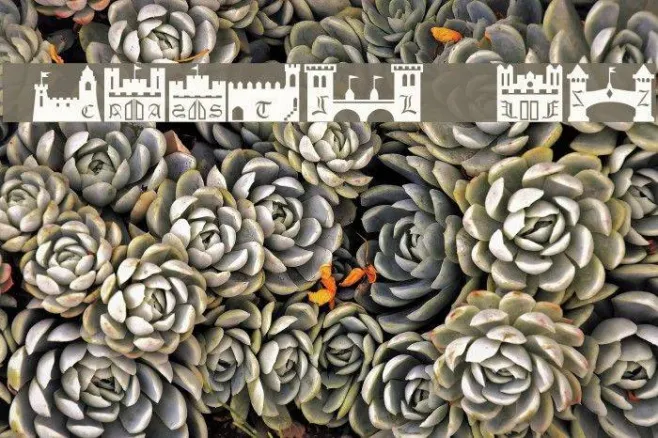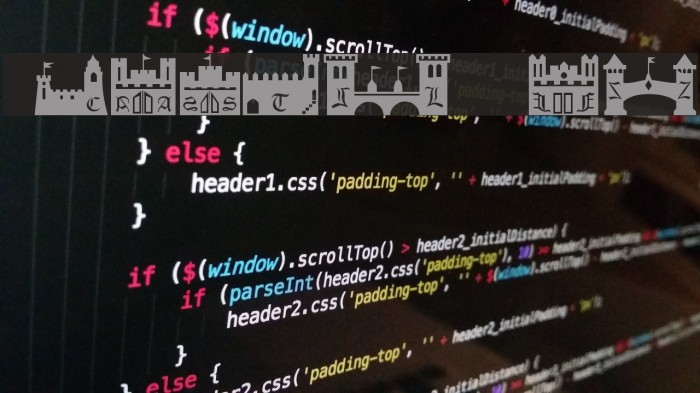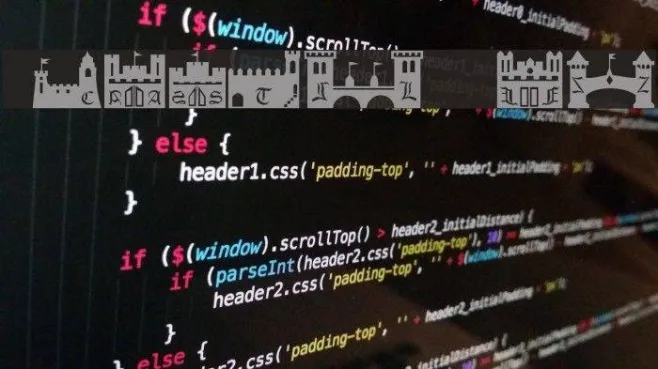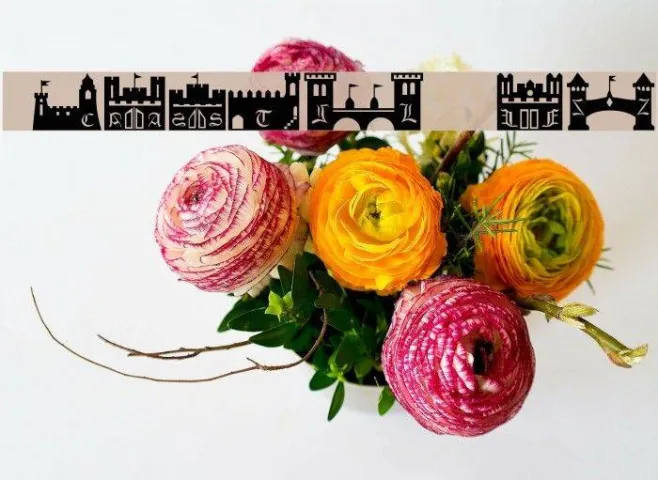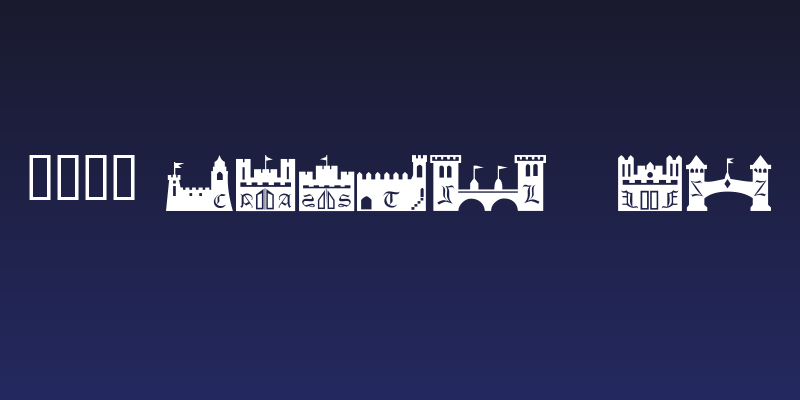
101! CastleZ Font
101! CastleZ Description
This unique decorative font is designed to resemble a series of castle silhouettes, with each character crafted to look like a distinct architectural structure. The font features intricate details, including towers, battlements, and spires, giving it a whimsical and medieval aesthetic. The characters are bold and have a consistent stroke weight, making them stand out with a strong visual presence. The spacing between characters is normal, allowing each castle-like letter to be distinct while maintaining a cohesive look. This font is ideal for projects that require a touch of fantasy or historical charm.
| Proposed Projects | Ideal for fantasy-themed posters, historical event invitations, themed party decorations, or children's book covers. |